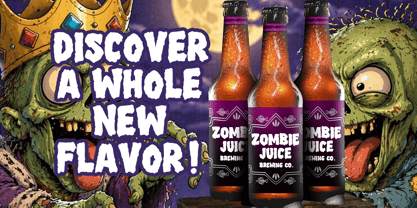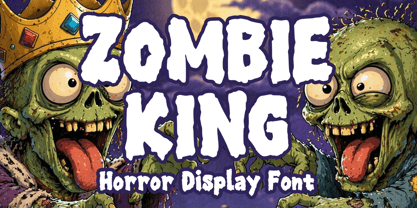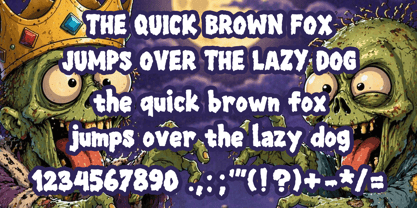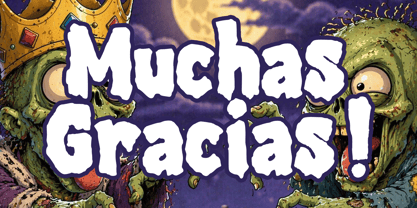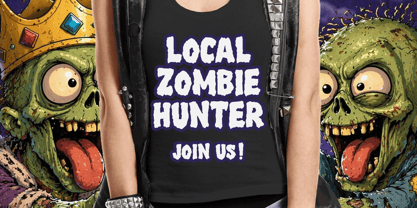
Zombie King
Die Schriftfamilie Zombie King wurde von Gabriel Valentinus entworfen und von Mvmet veröffentlicht. Zombie King enthält 1 Stile. Mehr über diese Familie
Introducing Zombie King, a delightfully eerie horror display font inspired by retro spooky cartoons. With its mischievous charm, this font is perfect for Halloween-themed creations and adds a touch of vivacity to everyday designs. It enhances garment designs, breathes life into book covers, adds eccentricity to greeting cards, makes your stickers stand out, and transforms banners and posters into captivating visuals. Infuse your creative projects with the playful yet chilling aesthetics of Zombie King, and watch your designs evoke smiles and chills in equal measure. This versatile font making it ideal for branding, web design, and editorial projects. Discover the whimsical potential of Zombie King and unleash your creativity!
Designer: Gabriel Valentinus
Foundry: Mvmet